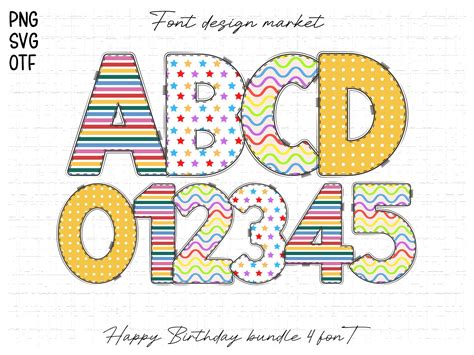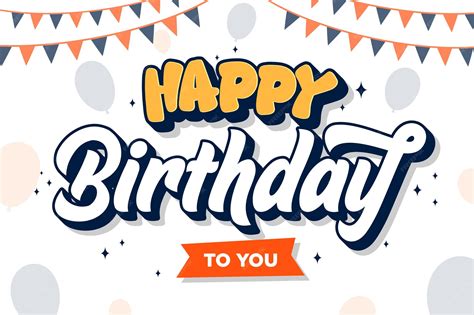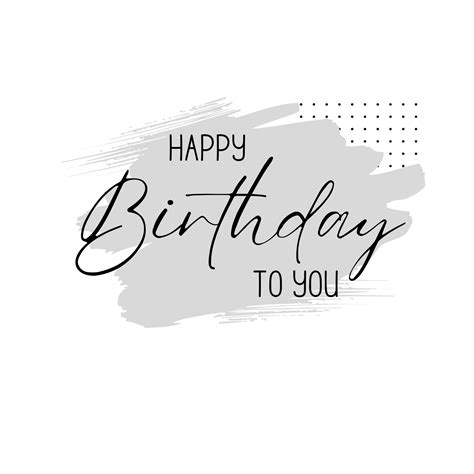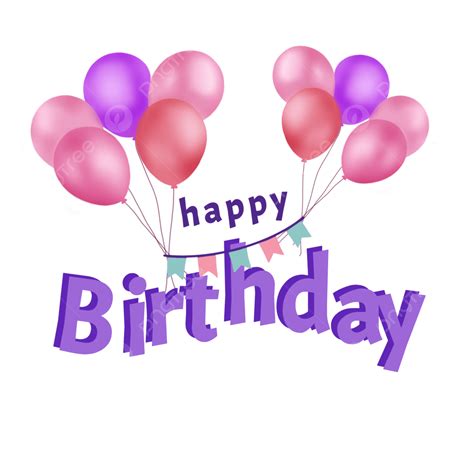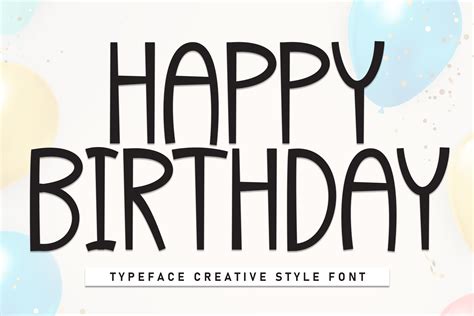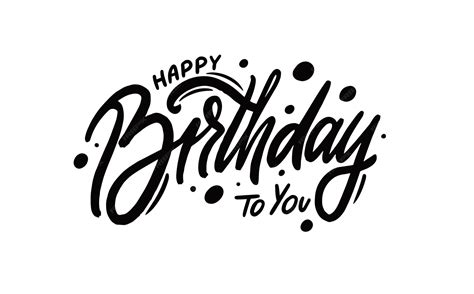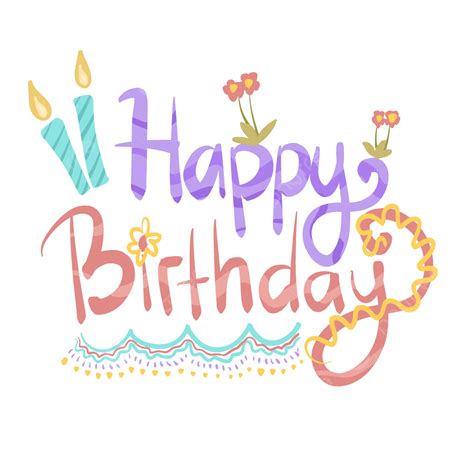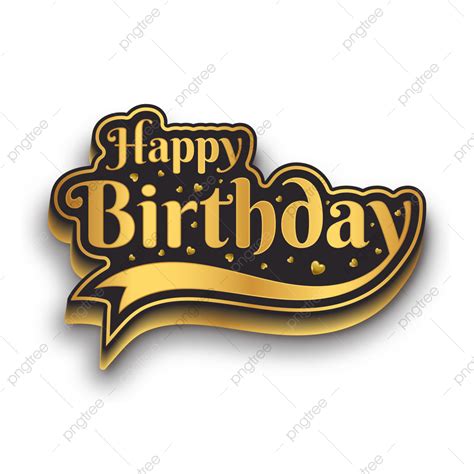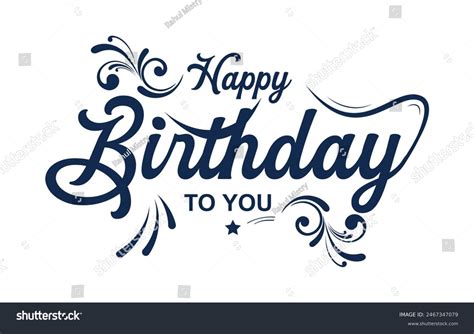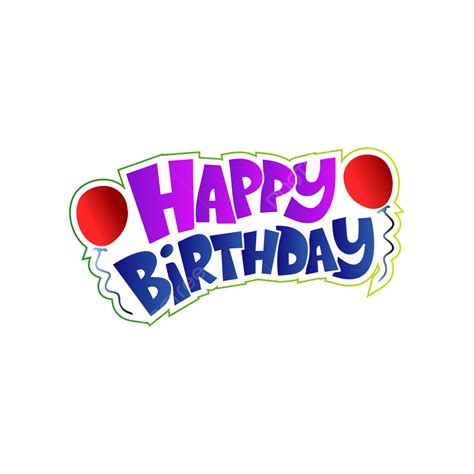
Celebrating a birthday is always a special occasion, and one of the best ways to make it even more memorable is by using a Happy Birthday Font. Whether you're designing a birthday card, creating a social media post, or planning a surprise party, the right font can set the perfect tone and make your message stand out. In this post, we'll explore the world of Happy Birthday Fonts, from classic choices to modern trends, and provide tips on how to use them effectively.
Understanding the Importance of Fonts in Celebrations
Fonts play a crucial role in conveying the mood and theme of any celebration. When it comes to birthdays, the font you choose can enhance the joyous atmosphere and make the recipient feel even more special. A well-chosen Happy Birthday Font can:
- Set the tone for the celebration, whether it’s playful, elegant, or nostalgic.
- Make your message more visually appealing and memorable.
- Reflect the personality and preferences of the birthday person.
Classic Happy Birthday Fonts
Classic fonts are timeless and often evoke a sense of tradition and elegance. These fonts are perfect for those who appreciate a more formal or vintage aesthetic. Some popular classic Happy Birthday Fonts include:
- Times New Roman: A classic serif font that exudes sophistication and formality.
- Garamond: Known for its elegance and readability, this font is great for formal invitations and cards.
- Courier: A monospaced font that gives a retro, typewriter-like feel, perfect for a nostalgic touch.
Modern Happy Birthday Fonts
For a more contemporary look, modern fonts are the way to go. These fonts often have clean lines and a sleek design, making them ideal for digital invitations, social media posts, and modern party decorations. Some popular modern Happy Birthday Fonts include:
- Helvetica: A versatile sans-serif font that is clean and modern, suitable for a wide range of applications.
- Arial: Another popular sans-serif font that is widely used for its simplicity and readability.
- Calibri: A modern font that is both stylish and easy to read, making it a great choice for digital communications.
Fun and Playful Happy Birthday Fonts
If you’re planning a birthday celebration for a child or someone who loves a bit of whimsy, fun and playful fonts are the perfect choice. These fonts can add a touch of excitement and joy to any birthday message. Some popular fun and playful Happy Birthday Fonts include:
- Comic Sans: A casual, hand-drawn font that is perfect for a playful and informal tone.
- Impact: A bold and attention-grabbing font that is great for headlines and short messages.
- Chalkduster: A font that mimics hand-drawn chalk letters, adding a playful and creative touch.
Choosing the Right Happy Birthday Font
Selecting the right Happy Birthday Font depends on several factors, including the recipient’s personality, the theme of the celebration, and the medium you’re using. Here are some tips to help you choose the perfect font:
- Consider the recipient’s preferences: Think about what kind of fonts the birthday person likes. Do they prefer classic, modern, or playful styles?
- Match the theme: Ensure the font complements the overall theme of the celebration. For example, a vintage theme might pair well with a classic font, while a modern theme could benefit from a sleek, contemporary font.
- Think about readability: While a fancy font might look great, it’s important to ensure that the message is easy to read. Avoid overly decorative fonts for important information.
Using Happy Birthday Fonts in Different Mediums
Happy Birthday Fonts can be used in a variety of mediums, from physical invitations to digital communications. Here are some tips for using fonts effectively in different contexts:
Physical Invitations and Cards
For physical invitations and cards, consider the following:
- Choose a font that complements the design and color scheme of the invitation.
- Use a font size that is easy to read, especially for older recipients.
- Consider using a combination of fonts for different elements, such as the main message and the details.
Digital Invitations and Social Media Posts
For digital invitations and social media posts, keep these tips in mind:
- Opt for a font that is clear and legible on screens.
- Use a font size that is large enough to be easily read on various devices.
- Consider using a font that is available on most devices to avoid compatibility issues.
Party Decorations
When it comes to party decorations, the font you choose can add a personal touch to banners, balloons, and other decorations. Here are some tips:
- Choose a font that matches the theme and color scheme of the party.
- Use a font size that is large enough to be seen from a distance.
- Consider using a font that is easy to cut out or print for DIY decorations.
Creating Custom Happy Birthday Fonts